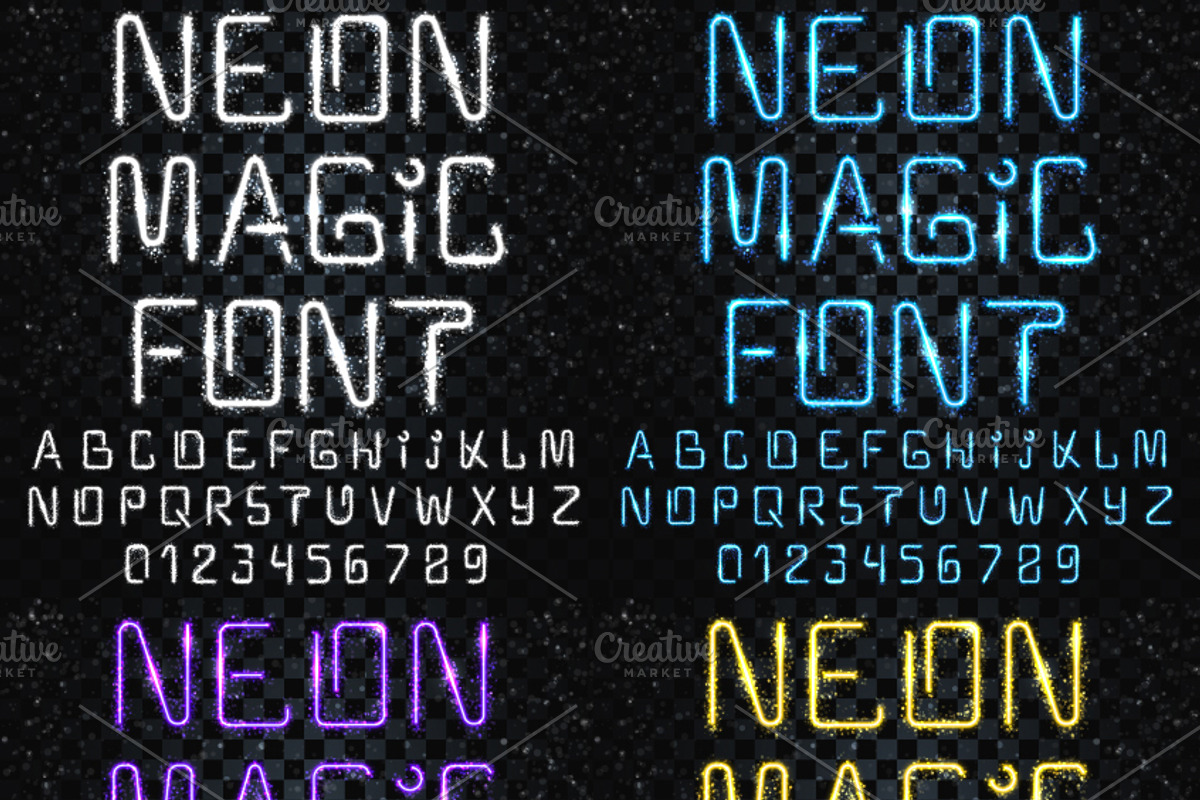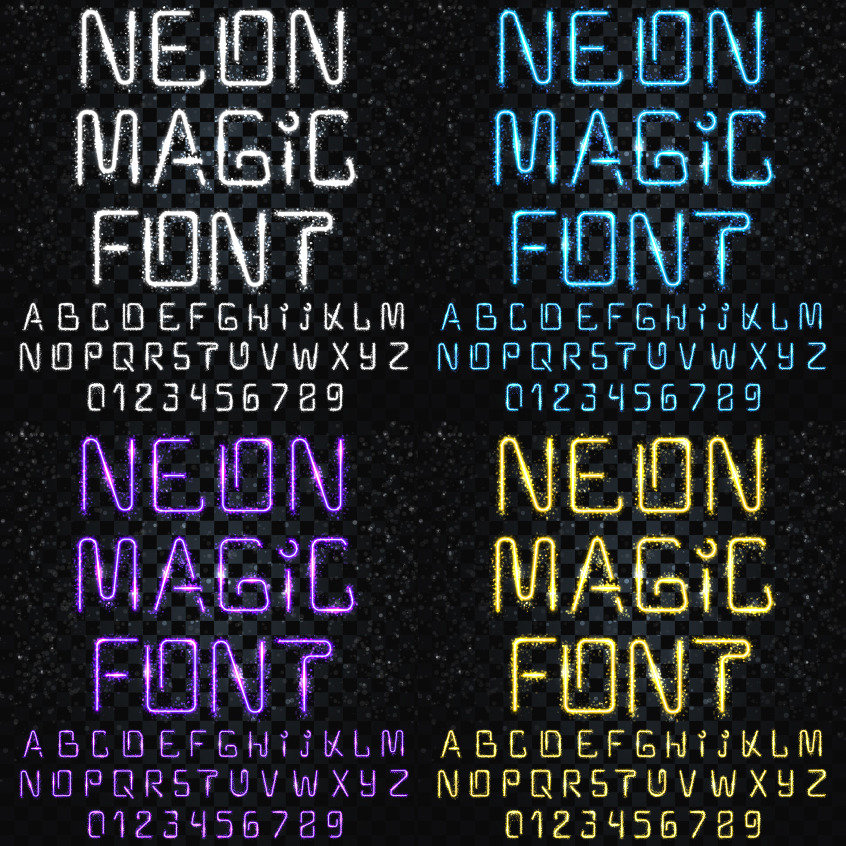
Font magic. Bright, shiny font
Font magic. Bright, shiny font. Electric letter. The letters and numbers with light effects. Font-style lightning storm. Futuristic font. Festive, fascinating alphabet for decoration and design